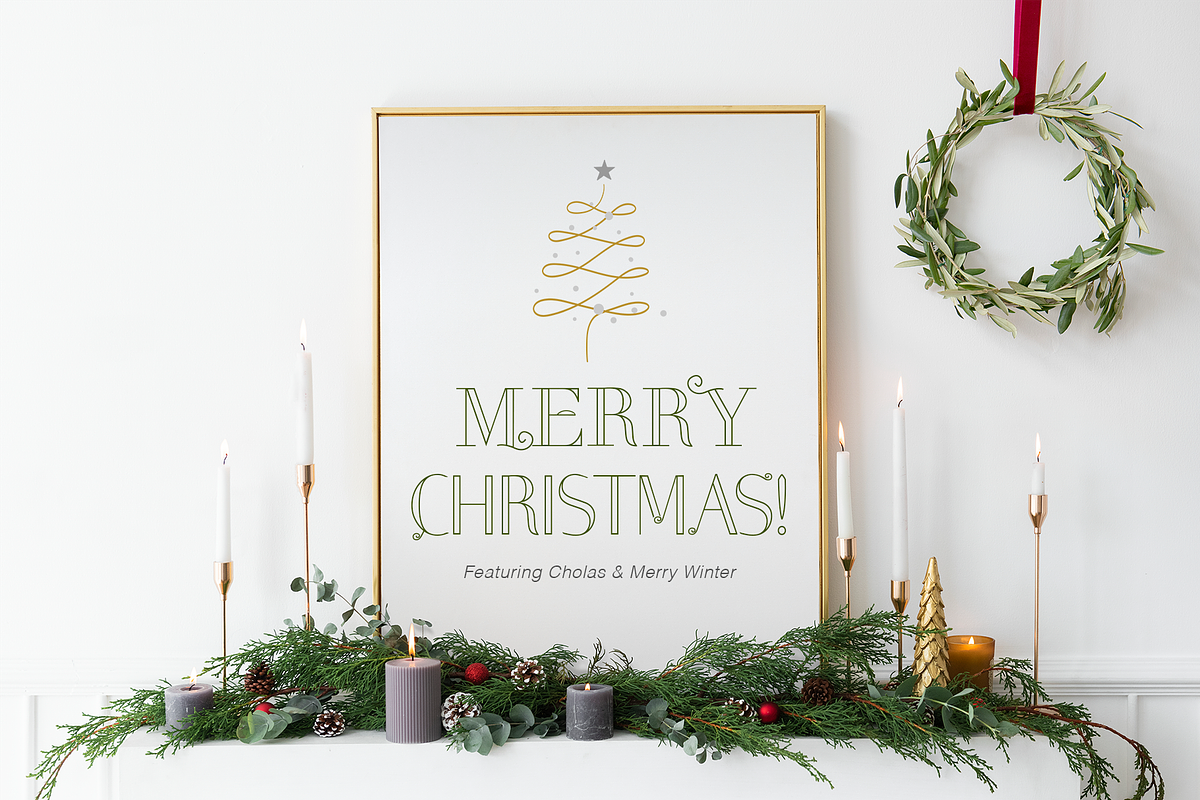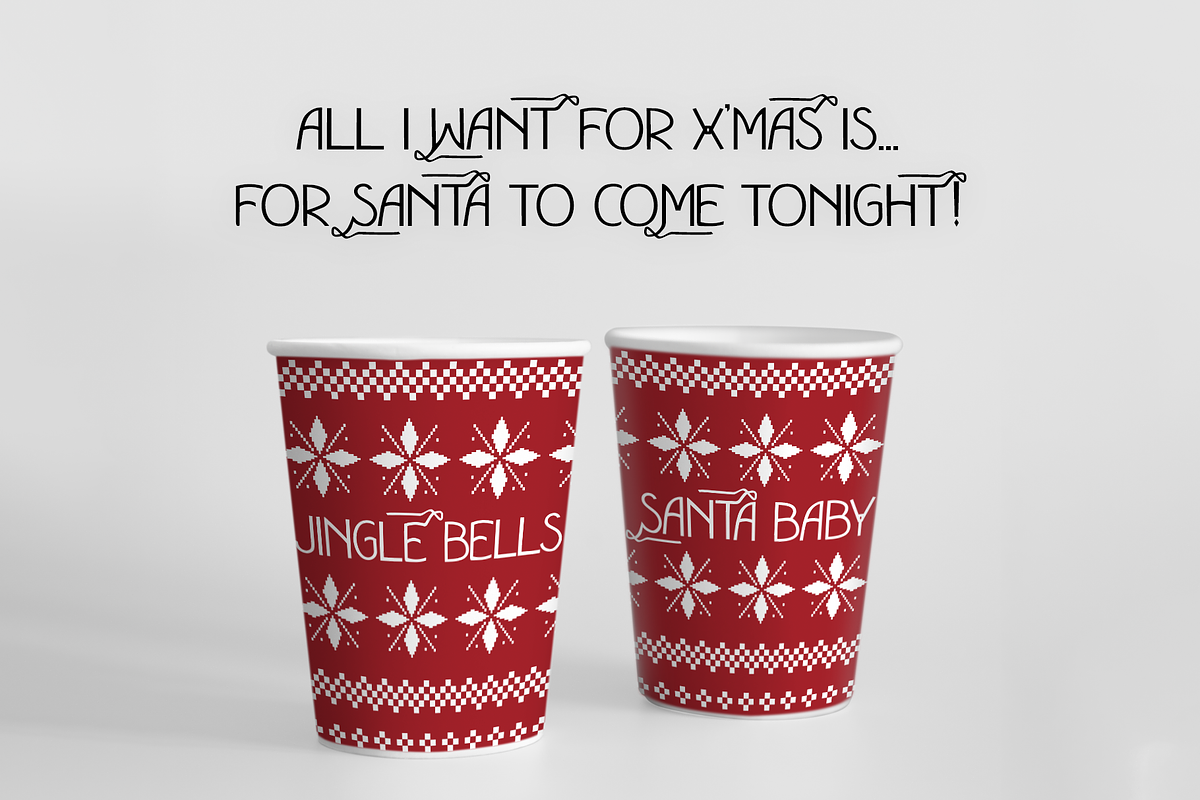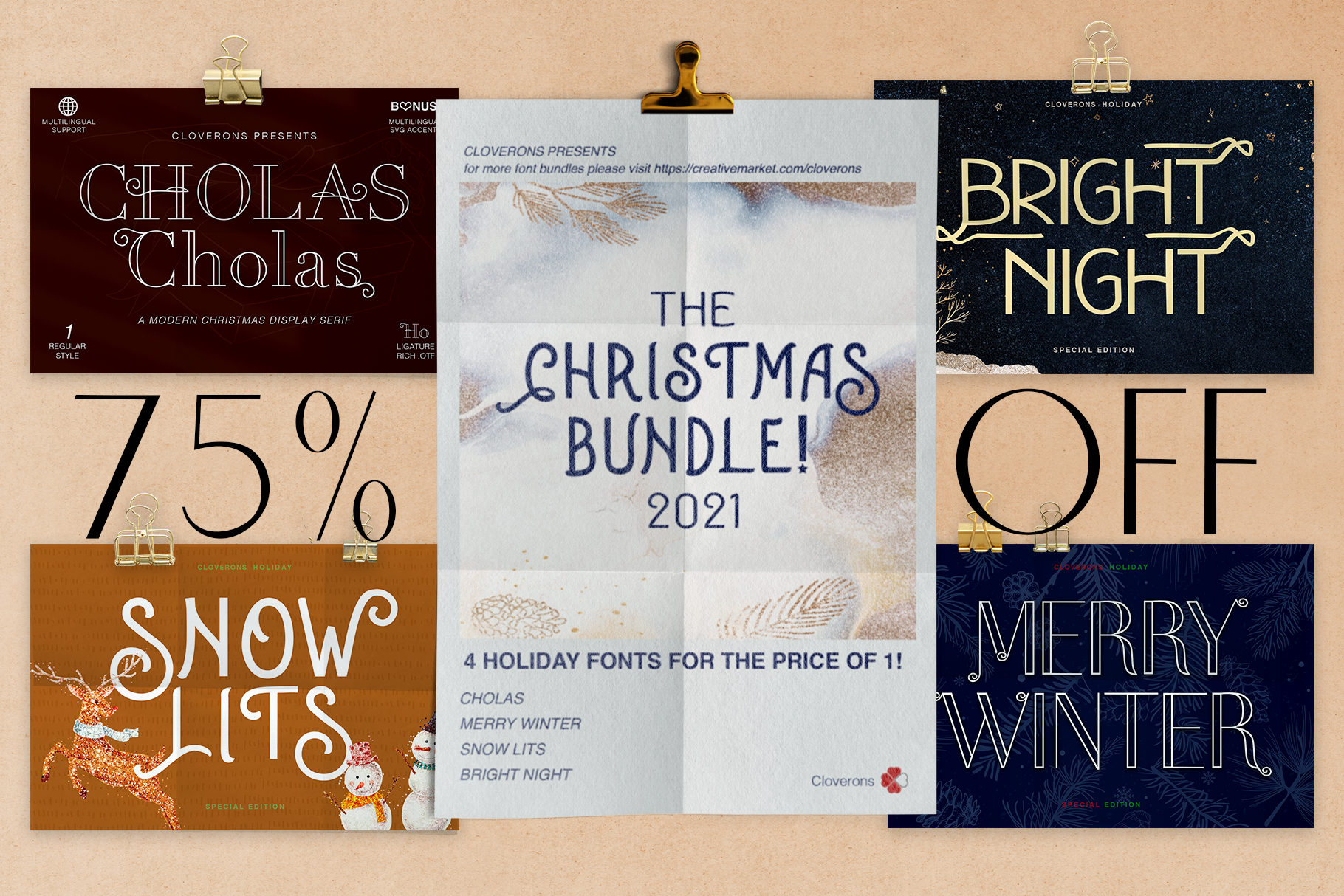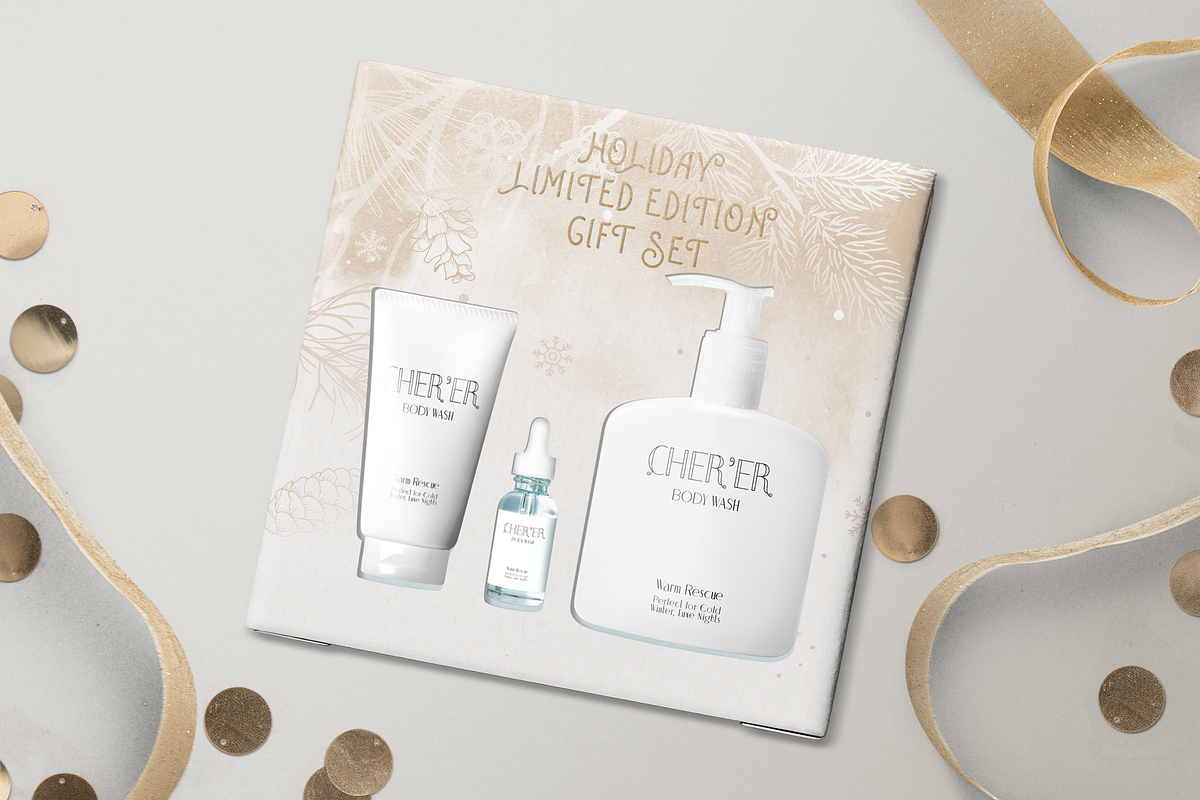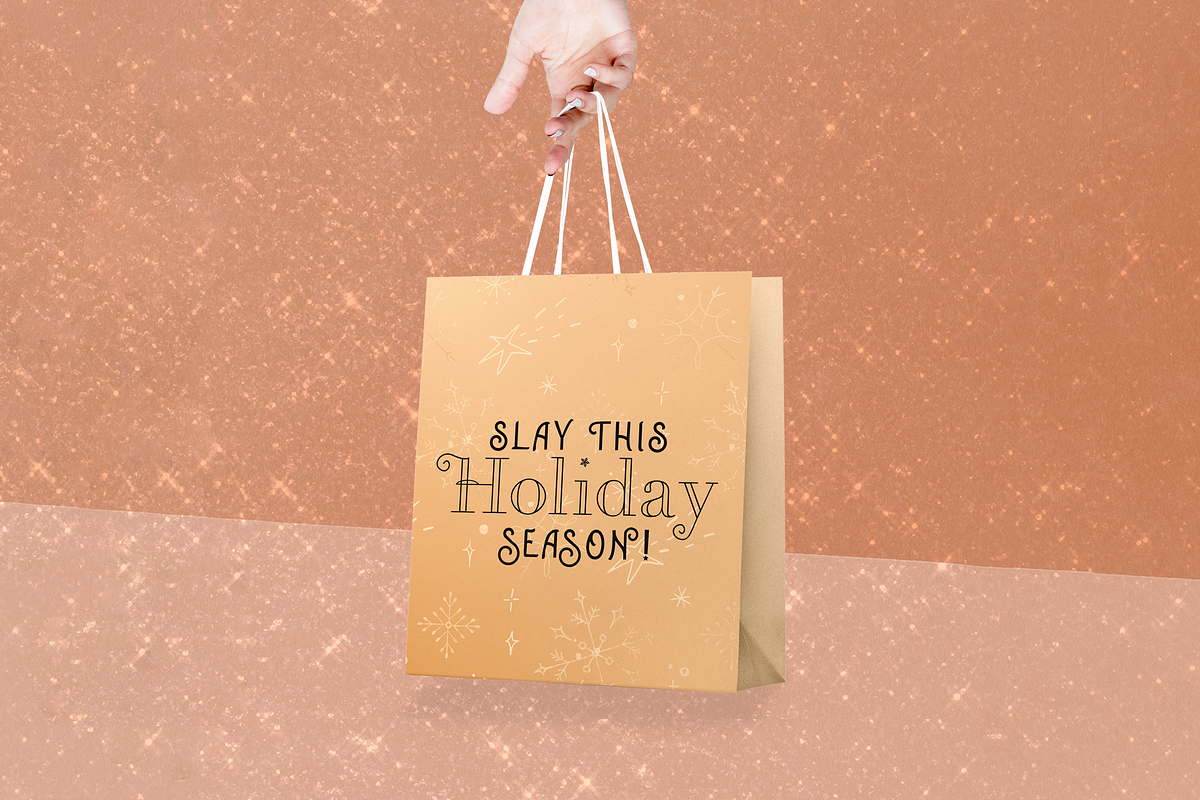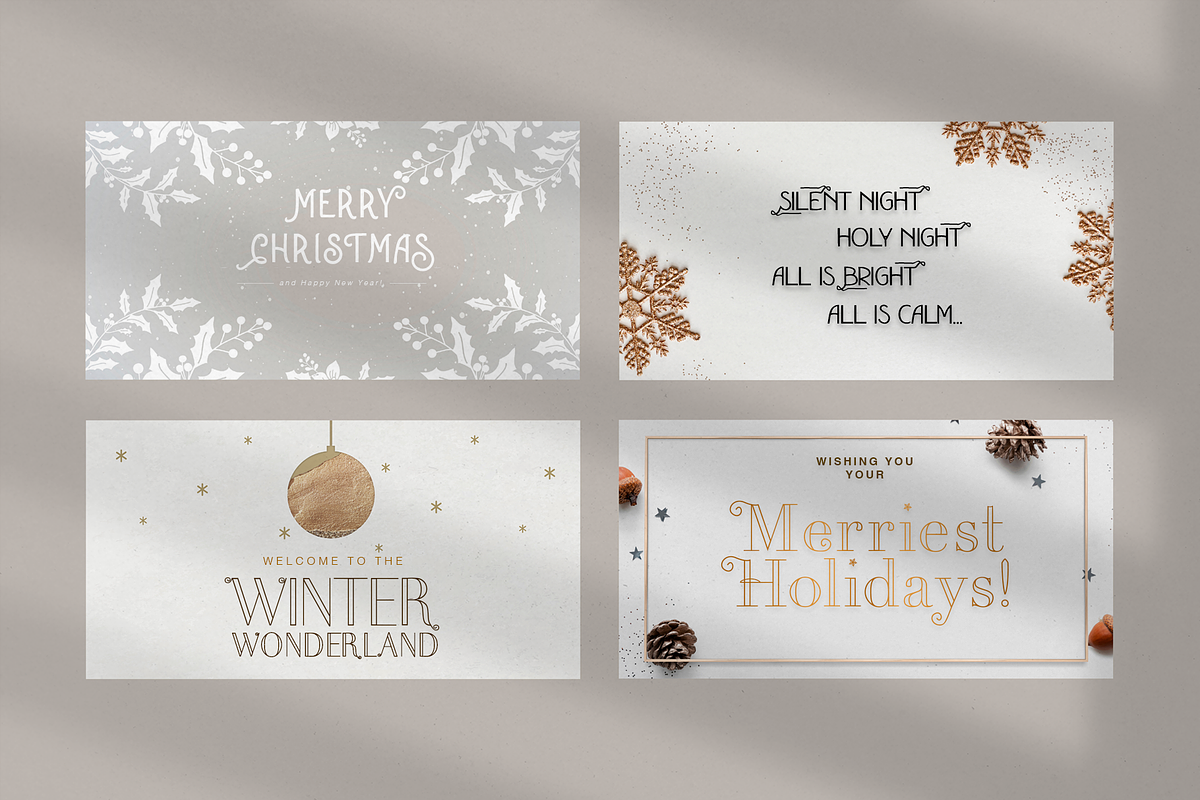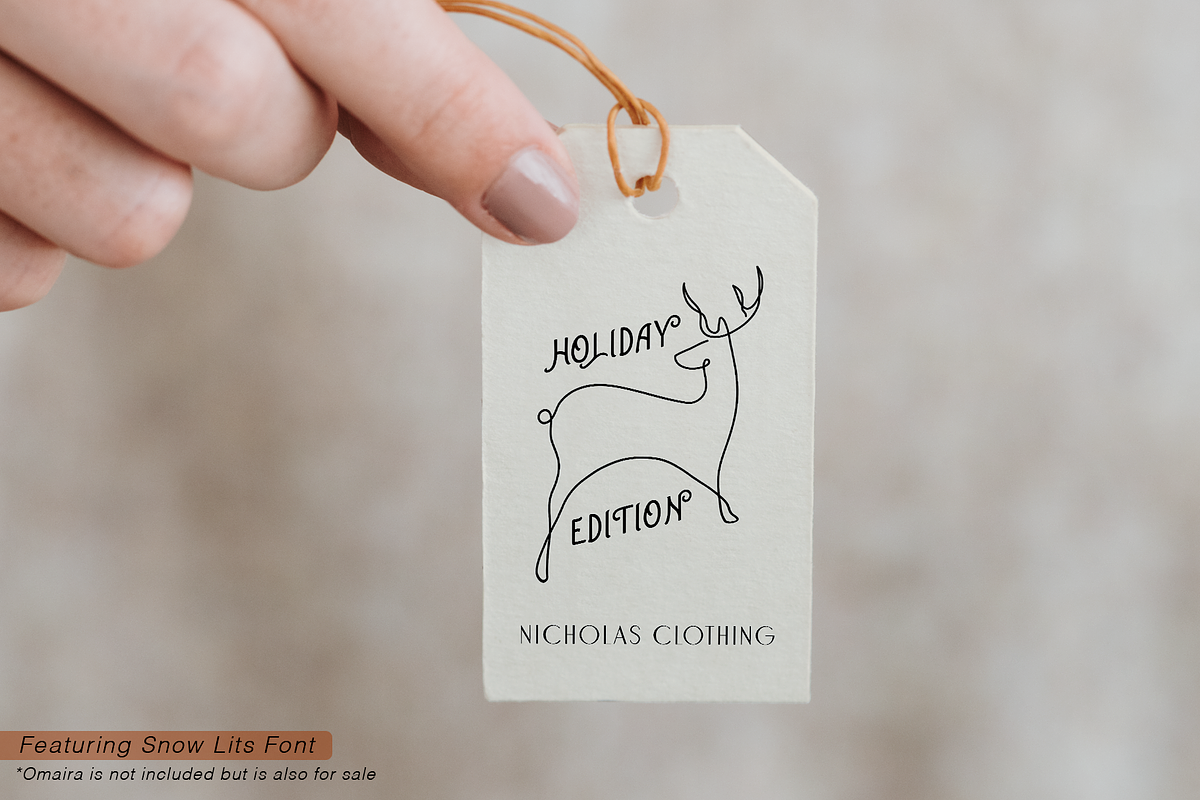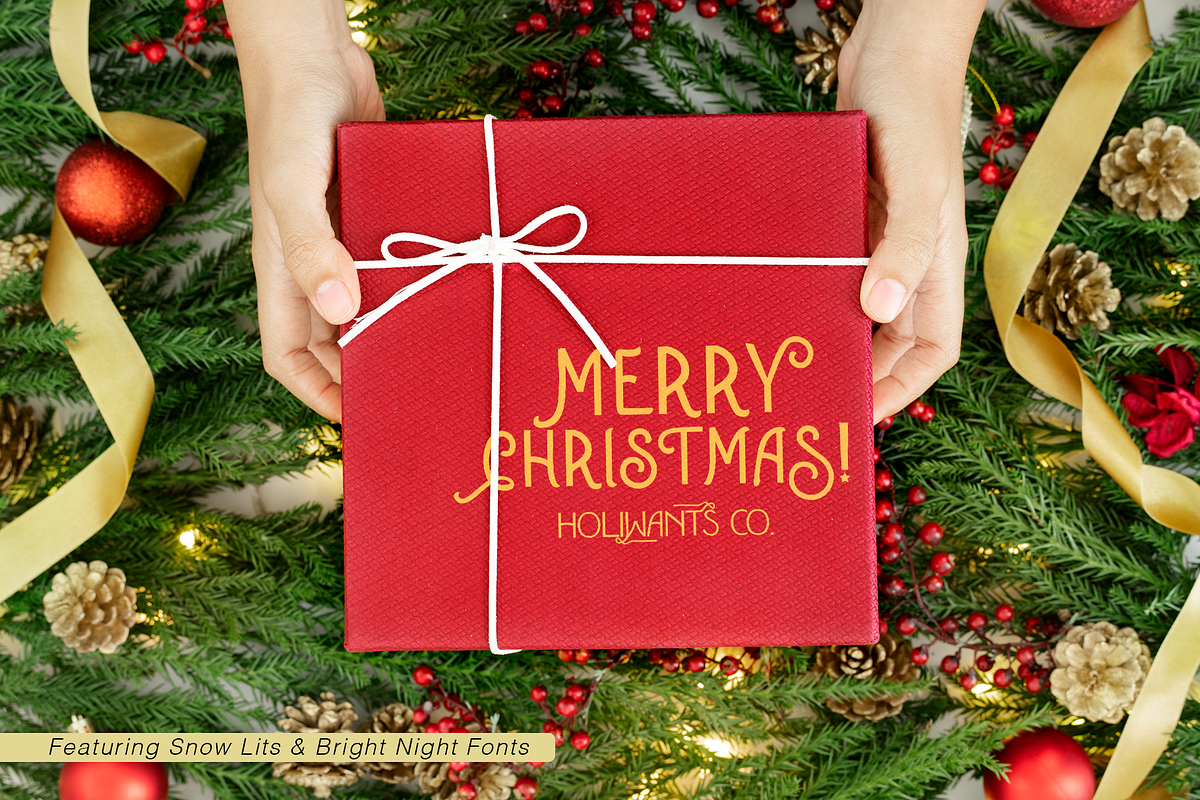
The Modern Christmas Font Collection
With the Modern Christmas Font Collection, you can give any brand an instant Merry, Holiday Cheer! Aesthetically please clients with visual materials to effectively cater the current holiday promotions using our Auto-ligature font features.
The ligatures featured in this collection are designed for the common words used for the Holidays and December Season. :)
Featured Limited Edition Holiday Fonts All New Release! from Cloverons
- Standard, Auto Ligatures
- Fonts pairings are possible ✨